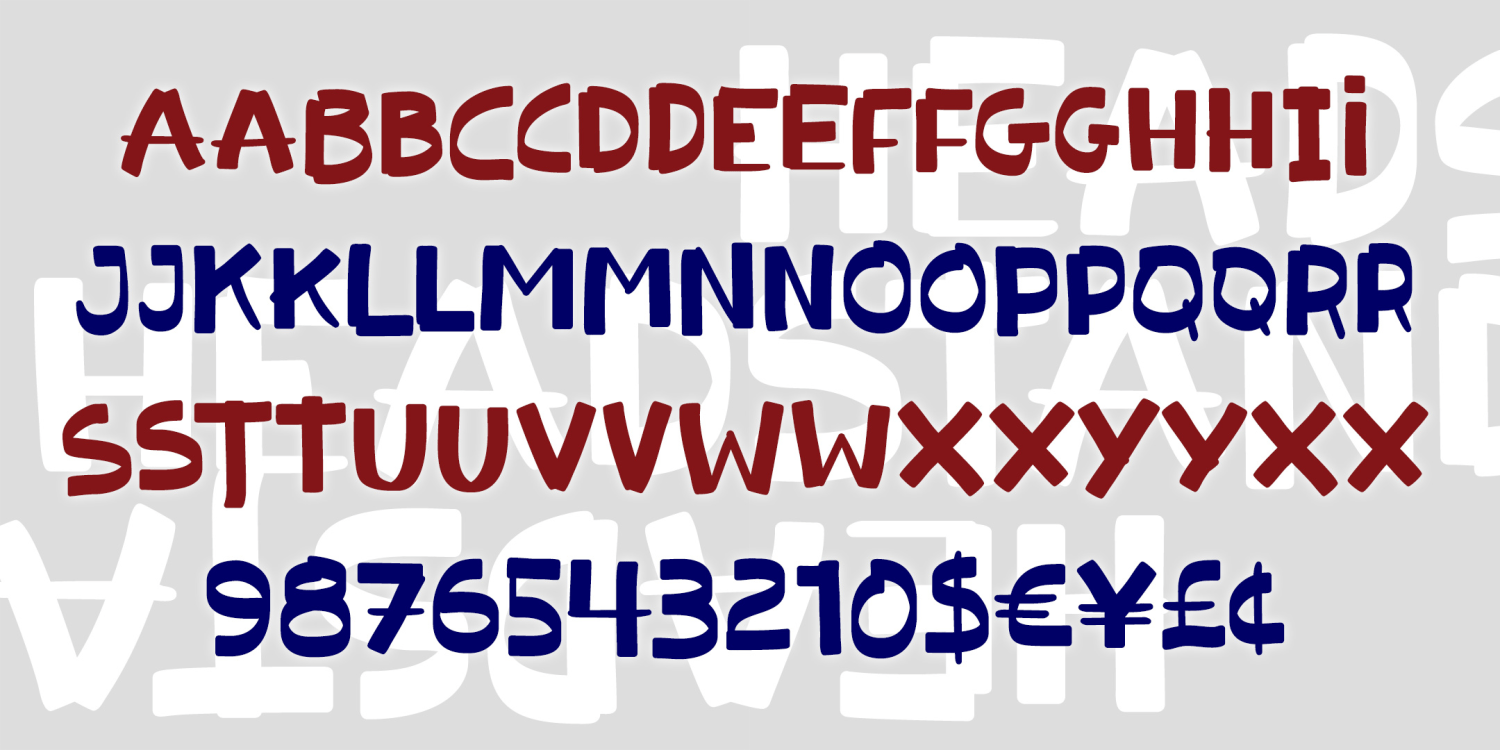
Headstand
HEADSTAND is a playful font that looks like it was written for kids, boldly and deliberately, with a marker on a dry-erase board. Stroke weights vary in unexpected ways as the letters bounce along the baseline. All caps, but OpenType features replace double letters and numbers with alternate glyphs for a real hand-lettered feel. [Headstand was inspired by the logo for Melania Trump's "Be Best" campaign, reportedly designed by the First Lady herself.]